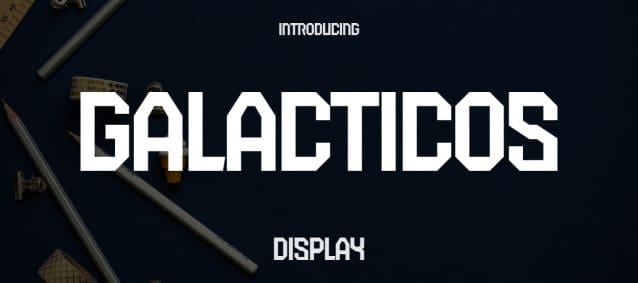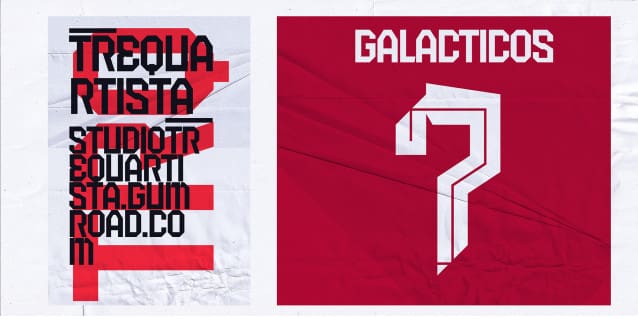
Galacticos Display Font
Galacticos Display Font, this bundle features strong, confident and powerful typefaces designed to work great with sports logos, club branding, apparel applications, labels and more.